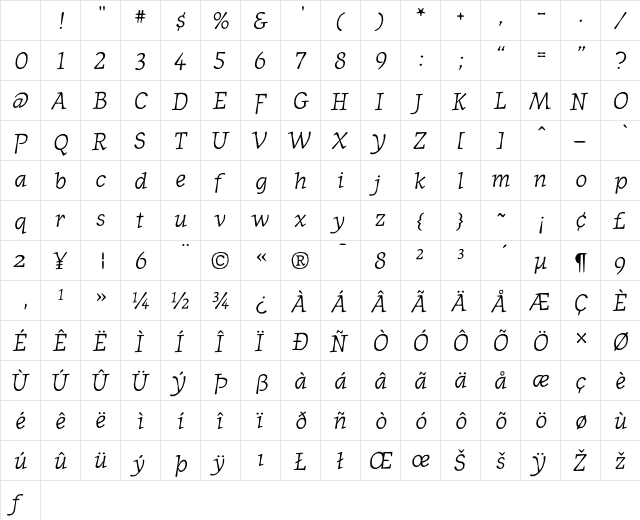
JournalItalic Regular
Design Context for JournalItalic
JournalItalic is a composed and adaptable typeface that performs quietly and consistently across a wide range of design contexts. The slanted form adds forward momentum and visual energy.